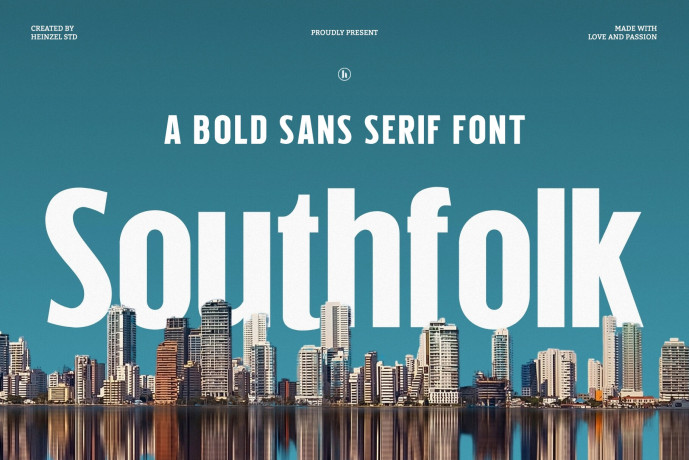
Command the horizon and elevate your layout’s architectural presence with Southfolk, an outstanding bold sans-serif display font! It is the ultimate creative tool for urban fashion branding, real estate advertising, impactful travel posters, cinematic title sequences, high-impact magazine headlines, and modern packaging designs.